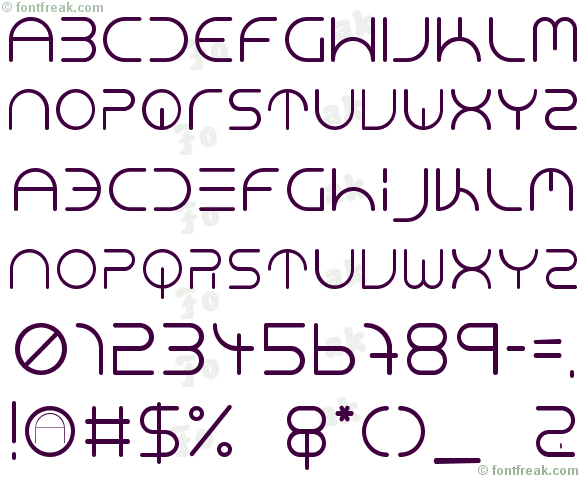
NEONCLUBMUSIC-Bold
About NEONCLUBMUSIC-Bold
NEONCLUBMUSIC-Bold is a striking display font designed by Manuel Viergutz, characterized by its bold, modern aesthetic that makes it perfect for a range of creative applications. This font belongs to the display category, which is ideal for capturing attention and making a statement. With its clean, geometric lines and consistent stroke weight, NEONCLUBMUSIC-Bold offers a contemporary look that is both stylish and versatile. The font features a medium contrast, providing clarity while maintaining an energetic vibe, making it suitable for various design contexts.
The design of NEONCLUBMUSIC-Bold includes decorative elements that evoke a sense of nightlife and entertainment, making it an excellent choice for applications such as nightclub flyers, music festival posters, and promotional materials for events. Its boldness ensures that it stands out against busy backgrounds, making it highly legible even from a distance. Additionally, this font can be effectively used for branding projects, social media graphics, and product packaging aimed at a youthful audience, enhancing the overall aesthetic appeal.
Targeting graphic designers, small business owners, and content creators, NEONCLUBMUSIC-Bold provides a fresh alternative to more traditional typefaces. It allows users to convey a sense of modernity and excitement in their projects, appealing to those looking to capture the essence of contemporary culture.
What truly sets NEONCLUBMUSIC-Bold apart is its ability to blend playful energy with professional appeal. This font not only attracts attention but also leaves a lasting impression. For those interested in experimenting with a dynamic typeface, the NEONCLUBMUSIC-Bold font free download offers a risk-free opportunity to elevate your design work. Embrace this font and let it illuminate your creative projects with its vibrant personality.